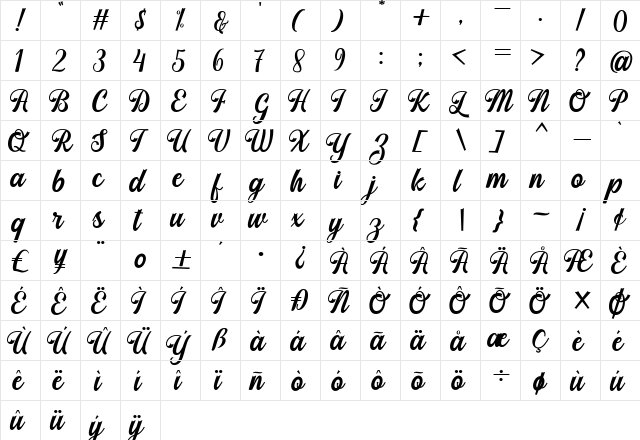
Stayhill Regular
Design Context for Stayhill Typeface
Stayhill takes a measured approach to typography — its balanced proportions and neutral character make it a reliable workhorse for both digital and print work.